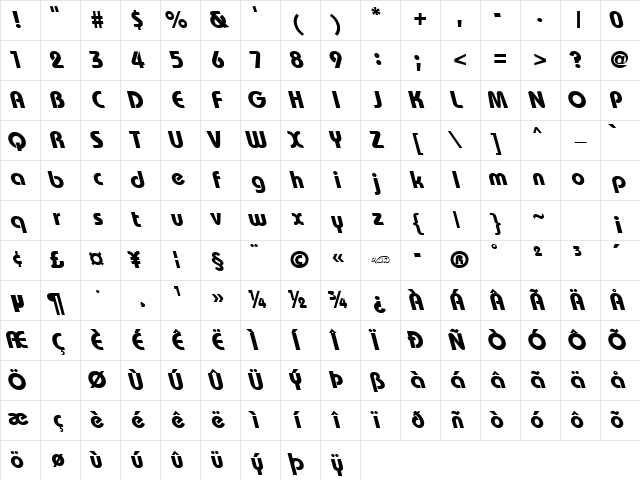
Bordeaux Backslant Bold Free Font
Bordeaux Backslant Bold
Bordeaux Backslant Family
Complete Bordeaux Backslant Bold glyph index. Displaying only characters natively supported by Bordeaux Backslant Bold font.
Design Context for Bordeaux Backslant
Bordeaux Backslant is a composed and adaptable typeface that performs quietly and consistently across a wide range of design contexts. Its bold stroke weight gives it real presence on the page.